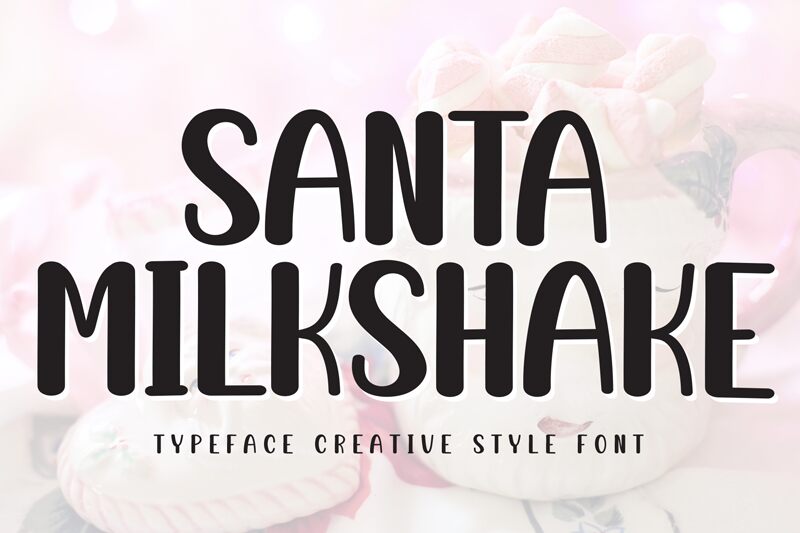
Santa Milkshake font by Scratchones is a free fancy font that combines elements of modern design to offer a friendly and inviting style. Its warm and casual appeal is perfect for creating approachable and contemporary graphics. Santa Milkshake is versatile and suitable for branding, packaging, and all kinds of informal settings.
Use it in animal product packaging, bakery logo design, Instagram post design, and more. Other interesting uses involve birthday invitation card design, sticker design, drink shop menu design, or quote design.
Our latest style letters are ideal for wall displays, wedding invitations, social media post logos, advertisements, product packaging, product designs, labels, photography, watermarks, invitations, stationery, and any project that calls for elegant handwriting.